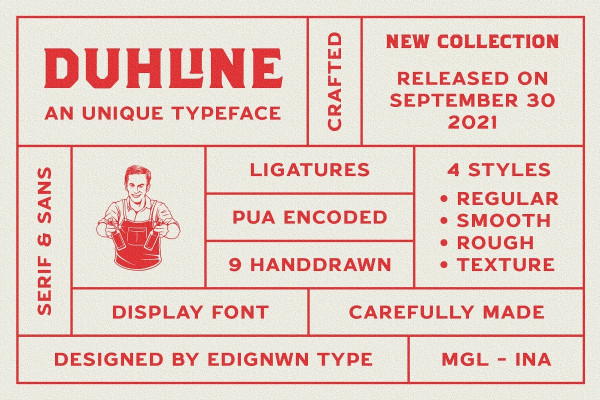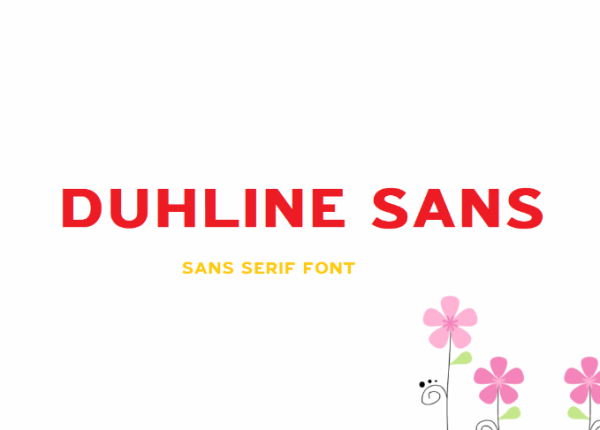
Duhline Sans Font
Duhline Sans Font is a sans serif font in the font collection called “Duhline”, it is the display font for the logo. These collections contain serif and sans serif fonts. Each font comes with 4 typefaces (regular, smooth, rough and textured). This texture style includes several different stamps for uppercase and lowercase letters. 9 more hand drawn illustrations of beer. Duhline matches are applied in a number of designs such as logos, posters, trademarks, badges, packaging, t-shirts, branding, quotes and many more custom designs.